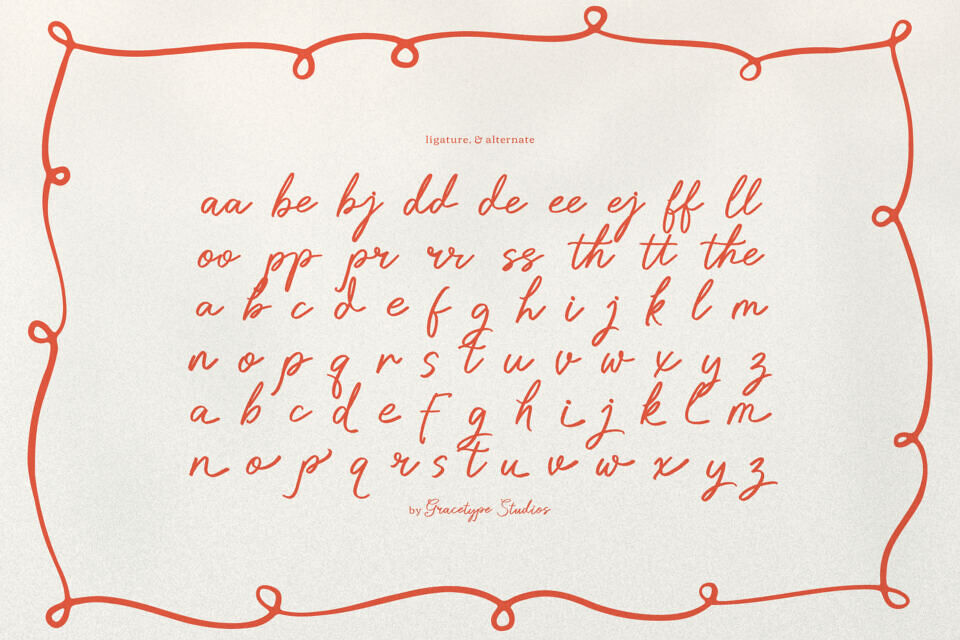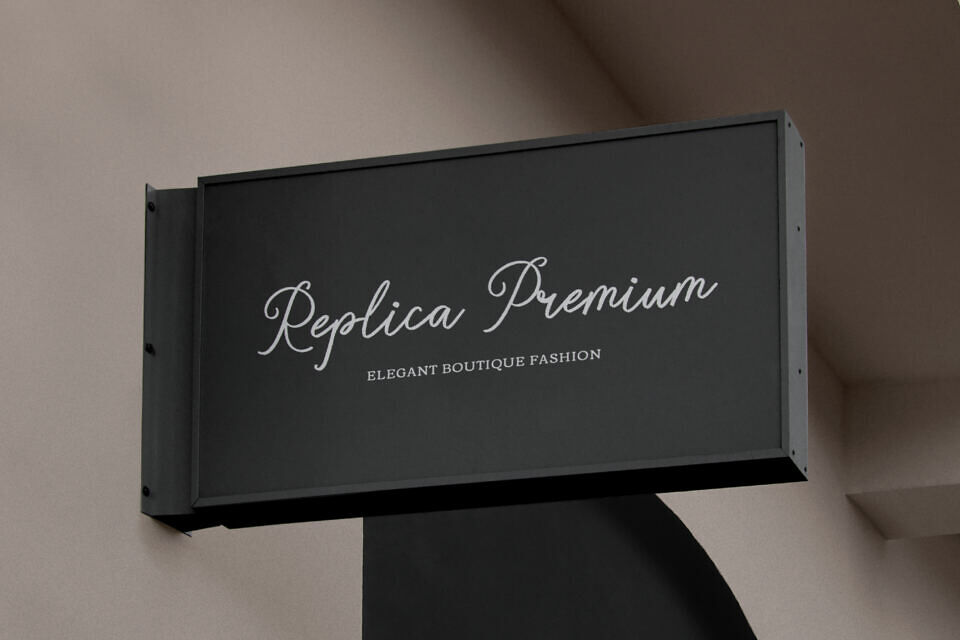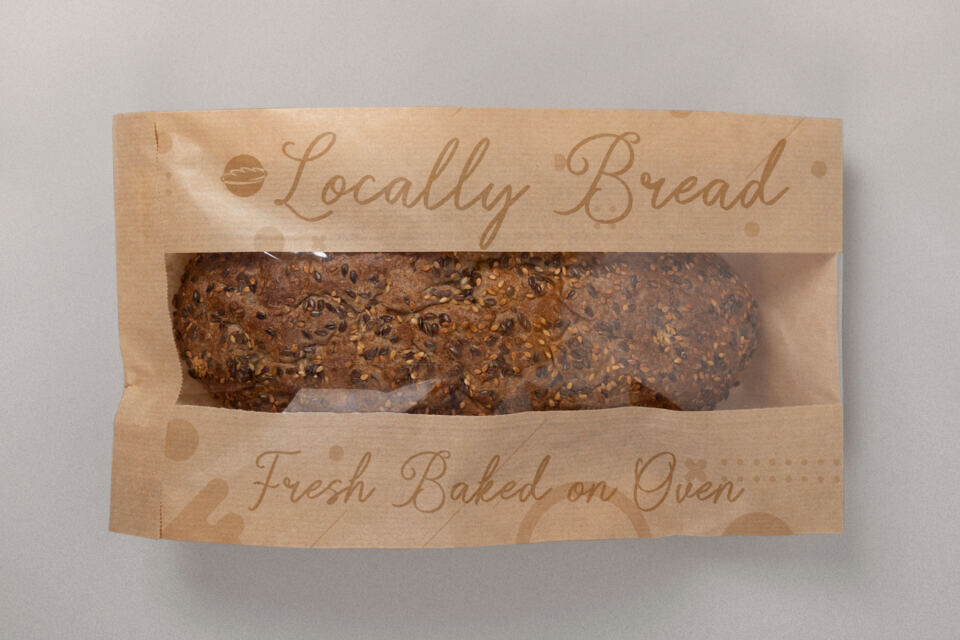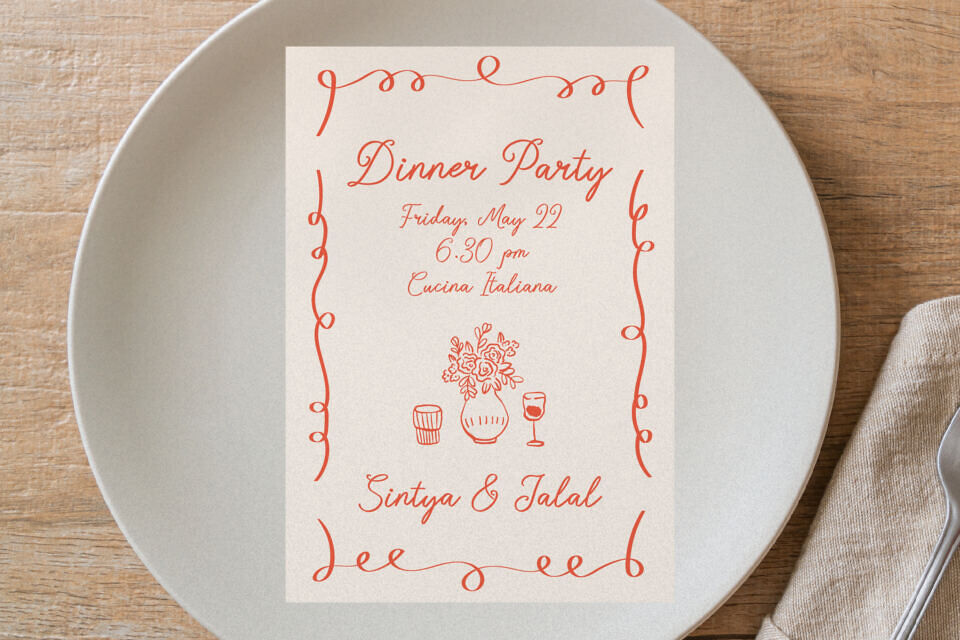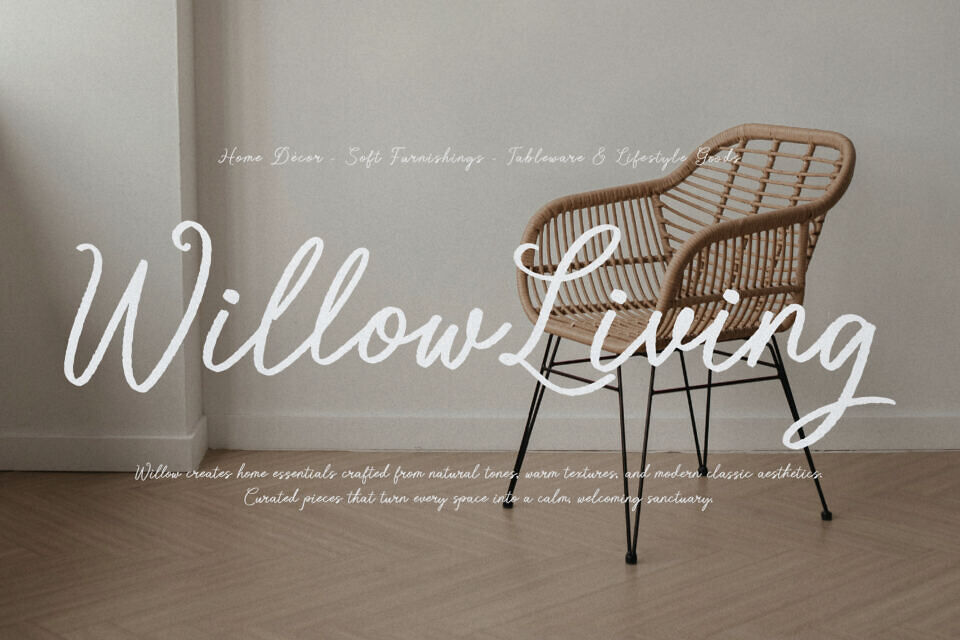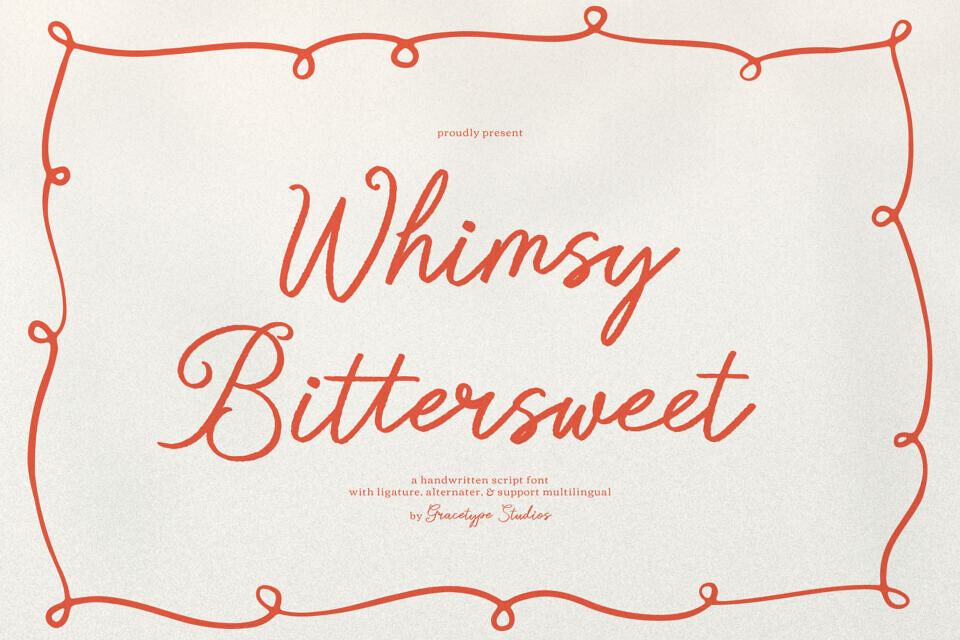
Whimsy Bittersweet Font
Whimsy Bittersweet is a handwritten script font from Gracetypestudio, suitable for any projects such as: logos, branding projects, homeware designs, product packaging, mugs, quotes, posters, shopping bags, t-shirts, book covers, name card, invitation cards, greeting cards, label, photography, watermark, special events, and all your other lovely projects that need a handwritten taste.